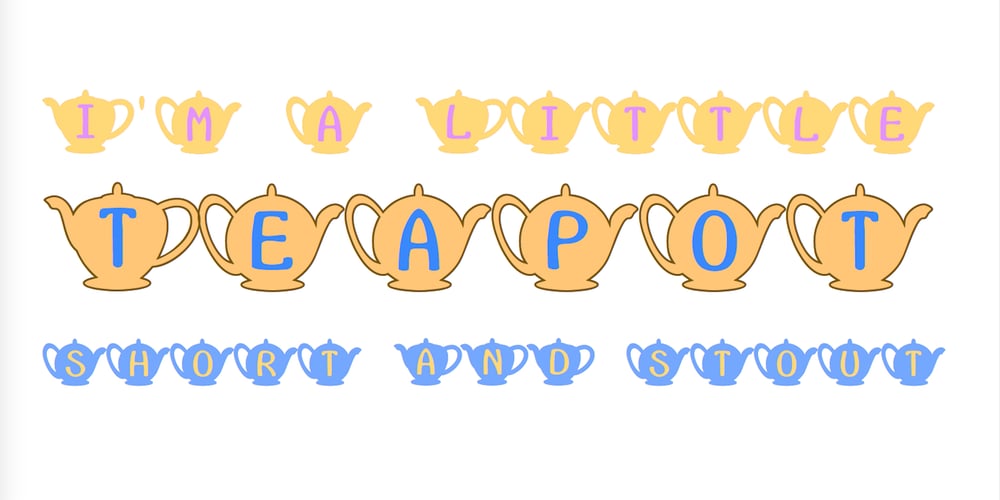
Teapot
Teapot font
Teapot Font Family was designed by Robert Schenk and published by Ingrimayne Type. Teapot contains 1 styles and family package options. Teapot is a font with letters on teapots. Upper-case letters have the handles on the right and lower-case characters have the handles on the left. The letters on the teapots are from the typeface InsideLetters. A revision in 2018 added some characters that can be used to create multicolored lettering.